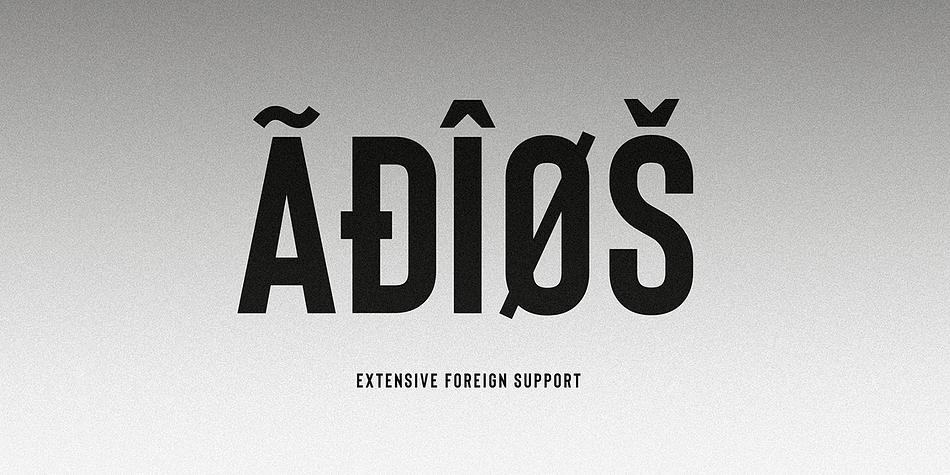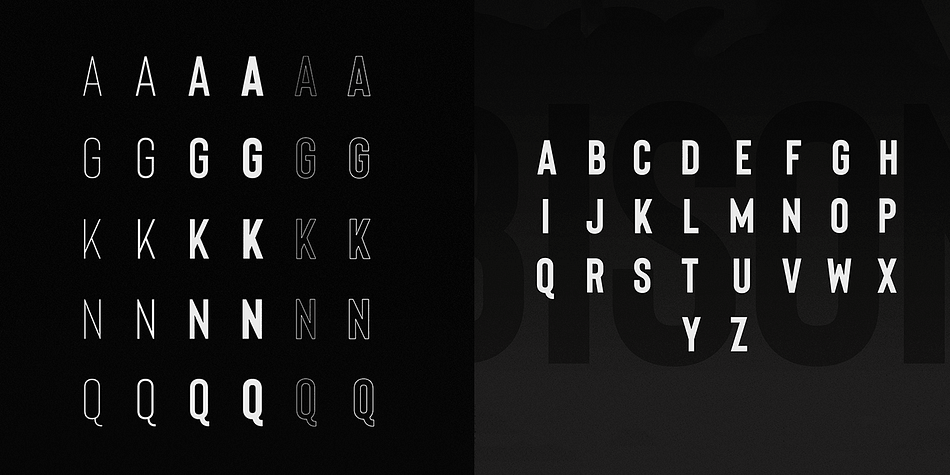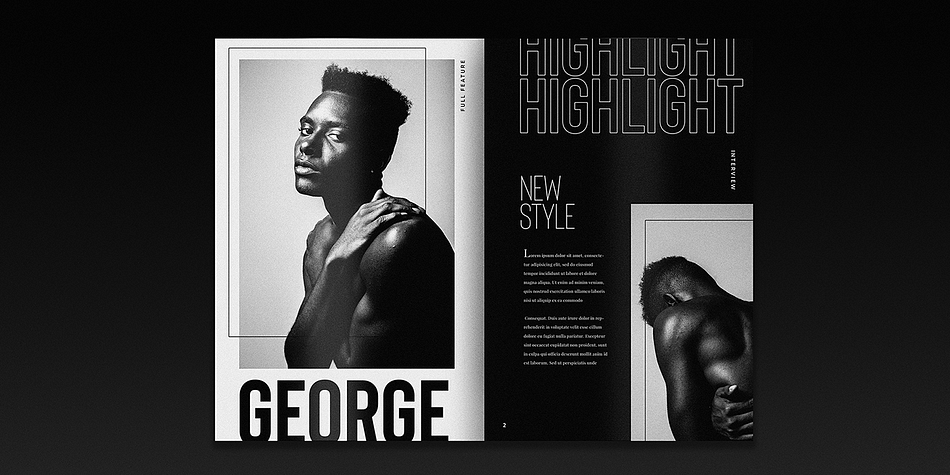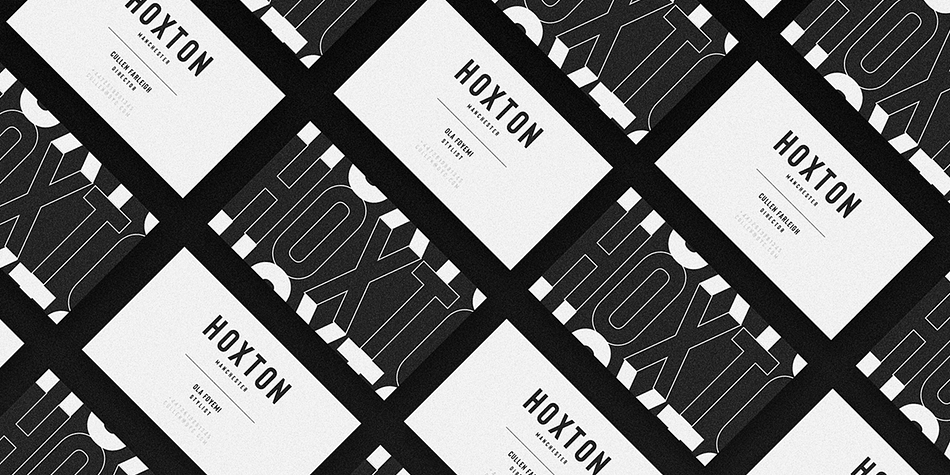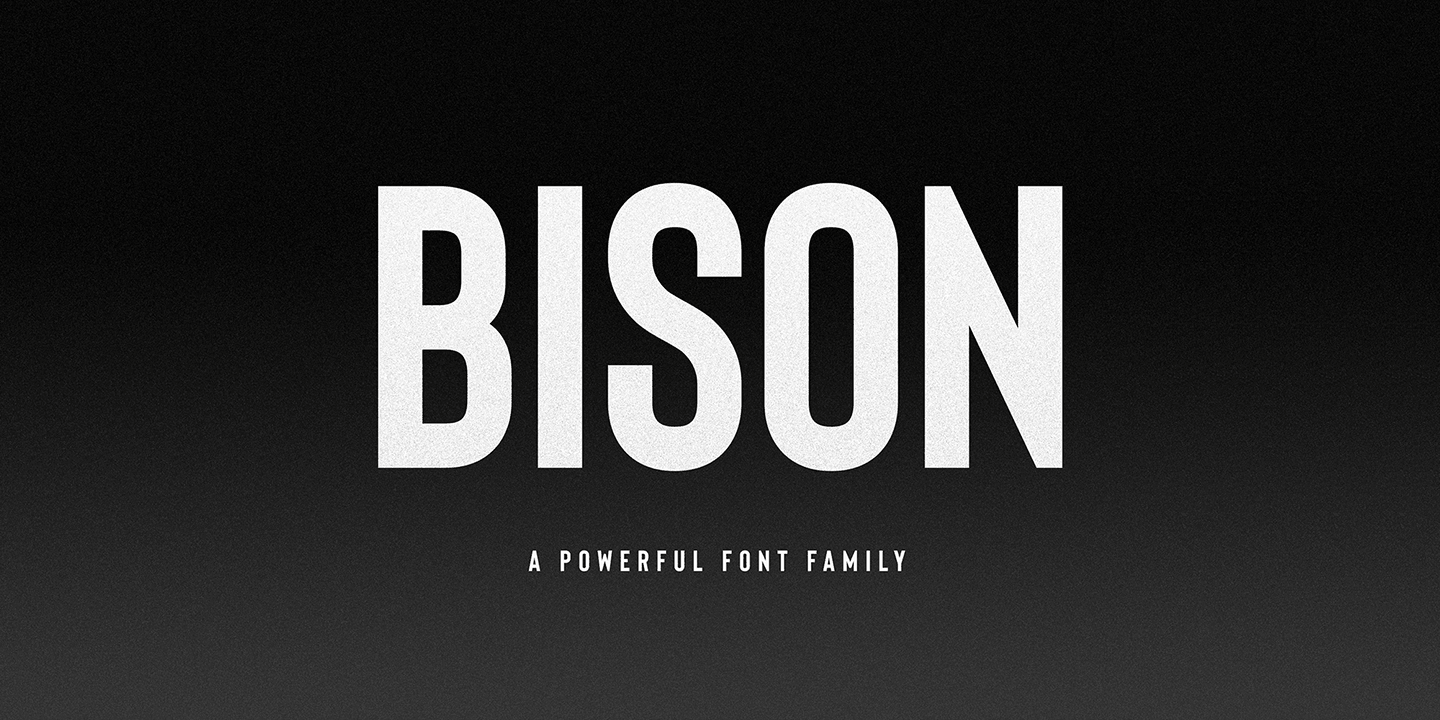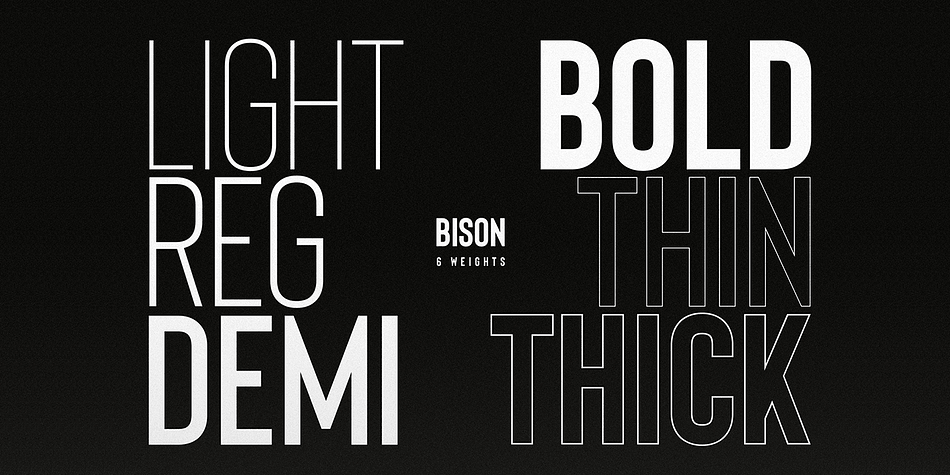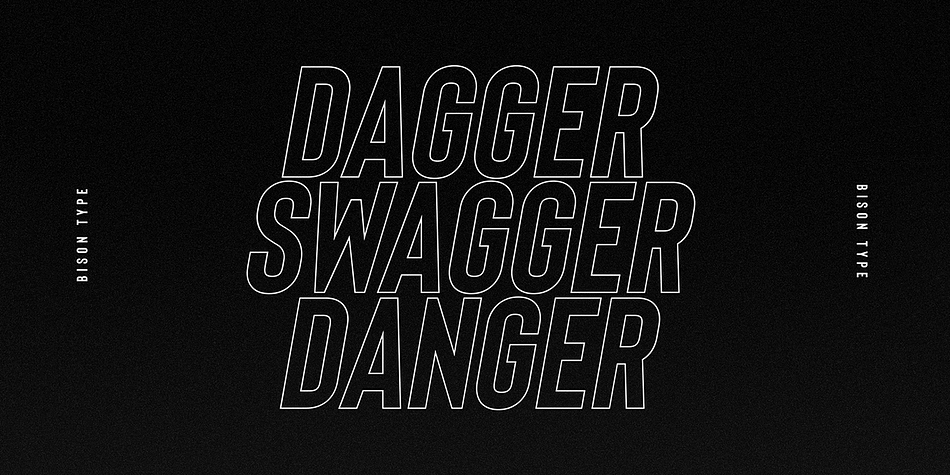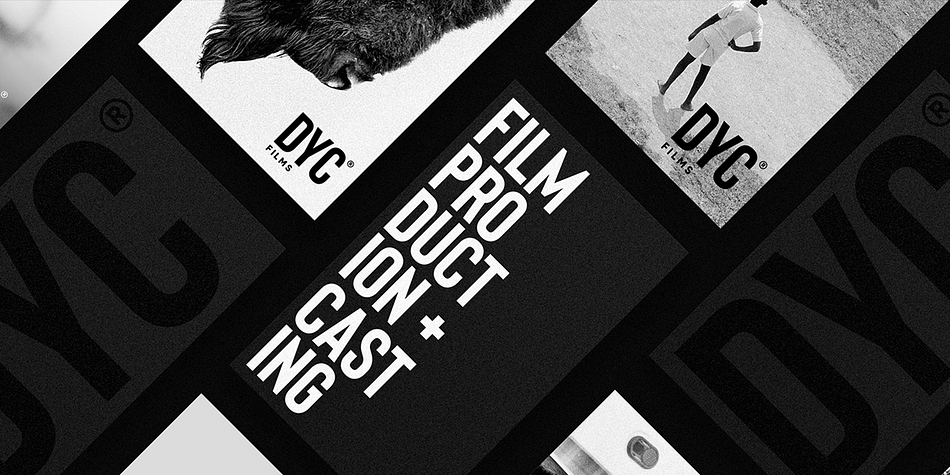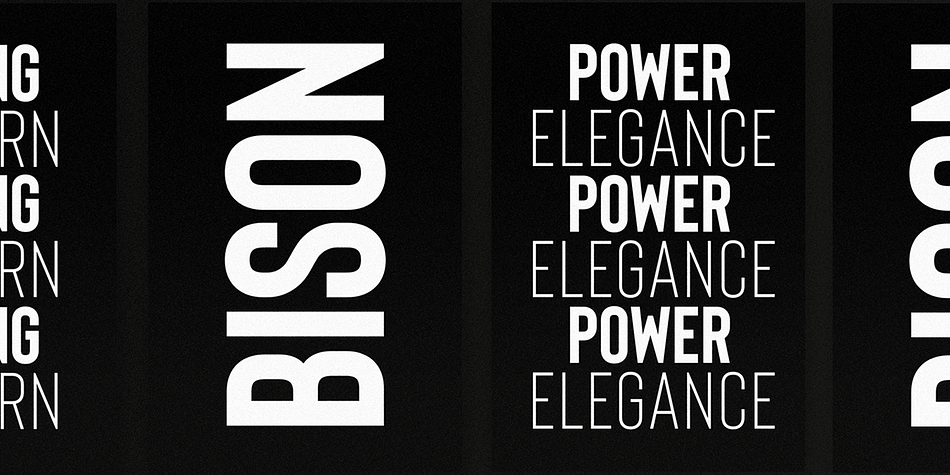
Designed by Ellen Luff, BISON is a display sans font family. This typeface has twelve styles and was published by Ellen Luff.
Bison is a strong font family and sophisticated sans serif. Inspired by the animal, it’s sturdy uncompromising style is felt through the controlled letterforms and modern touches. A balance of hard lines and smooth curves. Each font in the family can stand on its own, dynamic and authoritative in their own right.
It offers extensive language support, ALL Central & Western European Languages, Vietnamese and African languages.
Bison includes twelve all-caps fonts: Four weights, two outlines, six italics.
Bison Bold - Bold and commanding
Bison Demibold - The persuasive middleweight
Bison Regular - A sturdy midground between light and bolds
Bison Light - Quiet but confident
Bison Outline (Thick and Thin) - Edgy and engaging
Bison works great in any branding, logos, magazines, films. The different weights give you full range to explore a whole host of applications, while the outlined fonts give a real modern feel to any project.